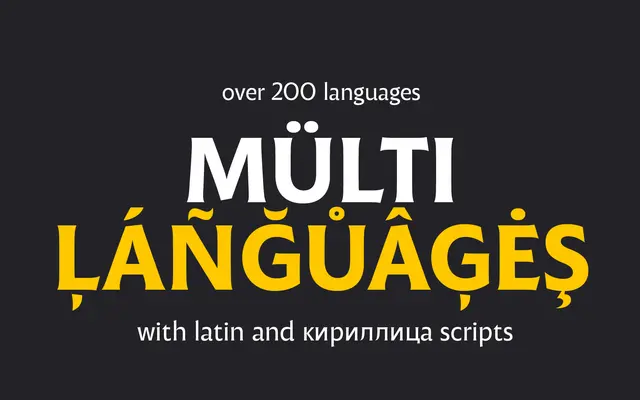
Malik
Zetafonts · Andrea Tartarelli · 2020
A flared sans by Andrea Tartarelli that bridges Old Style Roman structure with contemporary sans readability through stems that taper to sharp angles rather than conventional serifs.
Designed in 2020 by Andrea Tartarelli, Malik draws on the Simoncini Method and the calligraphic sensibility of Frederic Goudy and Ed Benguiat, producing details such as a reverse-contrast uppercase B and a calligraphic lowercase k. The family spans eight weights from Extralight to Heavy, all with true italics, plus a Book weight for fine-tuning text density and a Heavy cut with deep inktraps suited to logo work. Variable fonts for both upright and italic, small capitals, old-style figures and Cyrillic support across 218 languages round out a well-equipped 16-style family.
Malik uses flared serifs that emerge gradually from stems and end at a sharp angle, bridging Old Style Roman letterforms with contemporary sans readability — a distinct subcategory sometimes called 'lapidary' or 'flared sans'.